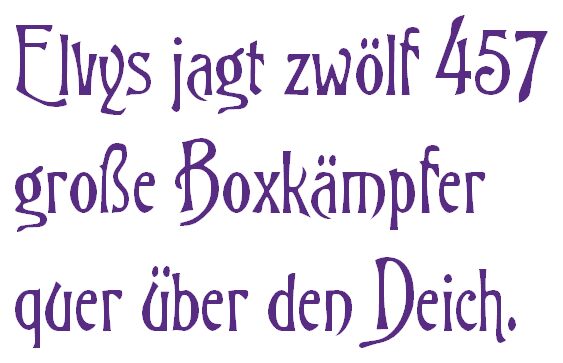
Trinigan FG
Trinigan FG, a creation by Fontgrube AH, stands as a distinctive gothic typeface that embodies an elegant blend of tradition and modernity. Its semi-light weight lends a subtle grace to the already condensed characters, offering a sleek and sophisticated aesthetic. The Trinigan FG's sharp serifs and slight flairs at the ends of its strokes evoke the storied heritage of gothic design while maintaining readability.
The font's condensed width makes it an excellent choice for projects where space is at a premium but style can't be compromised. From editorial headlines to branding and logo design, Trinigan FG offers versatility with its unique gothic flair that can add character to any creative endeavor. Its distinct appearance ensures that any text will capture attention while exuding an air of refinement.
Whether it is used in digital media or print, Trinigan FG adapts gracefully, providing designers with an artistic tool that marries visual impact with functional elegance.
An Art Nouveau typeface well-known via advertising and the silver screen.
This font goes by quite a number of names: "Goodfellow", "PS Bluegum Forest", "Burton's Nightmare". P22 sells this face as "Victorian Swash" saying it was inspired by a historical face called "...'Columbian', which has also been known in recent years as 'Glorietta'..." (P22.com).
This "Glorietta" is in the "Solotype Catalogues", a collection of old typefaces by Dan X. Solo, published by Dover. (See his bio on myfonts.com.) Probably that printed sample was directly or indirectly the mother of all these typefaces.
Trinigan has an extended western and Turkish charset and 108 Kern pairs. Germandbls, Euro symbol and a few other characters were created new. First published in 2002. Revised and amplified in 2013 as version 1.10.